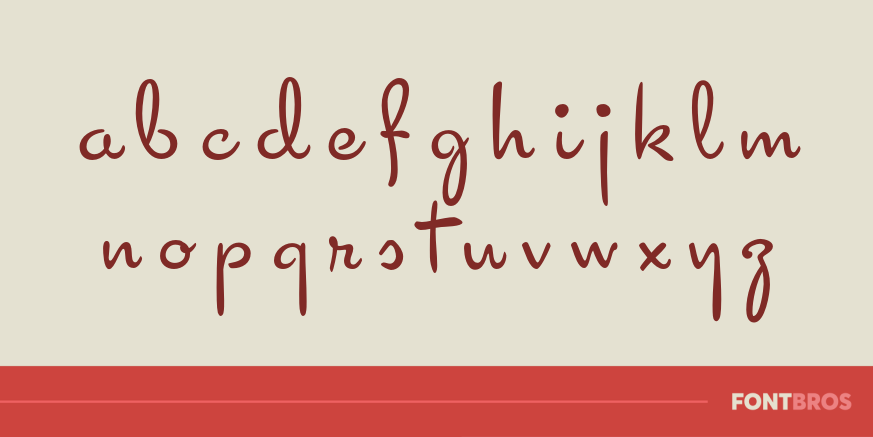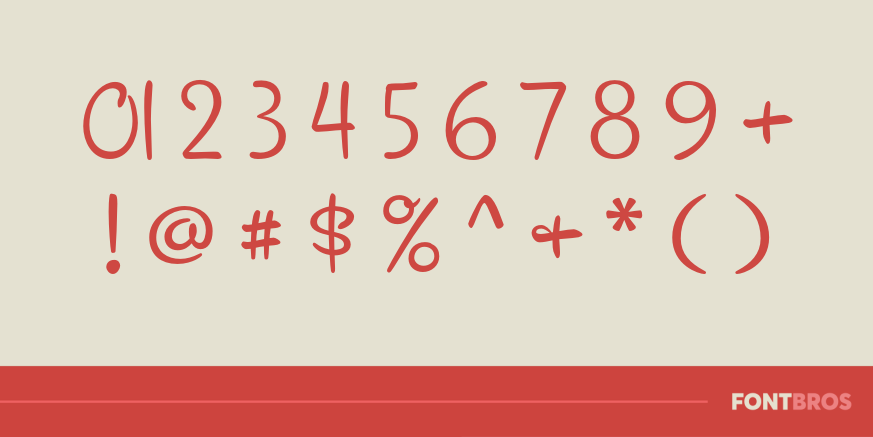
Cocktail Script
Font Family by Font Diner
Elegance has a new name, Cocktail Script! This vintage handwritten pen script is certain to add a sophisticated flavor to any design